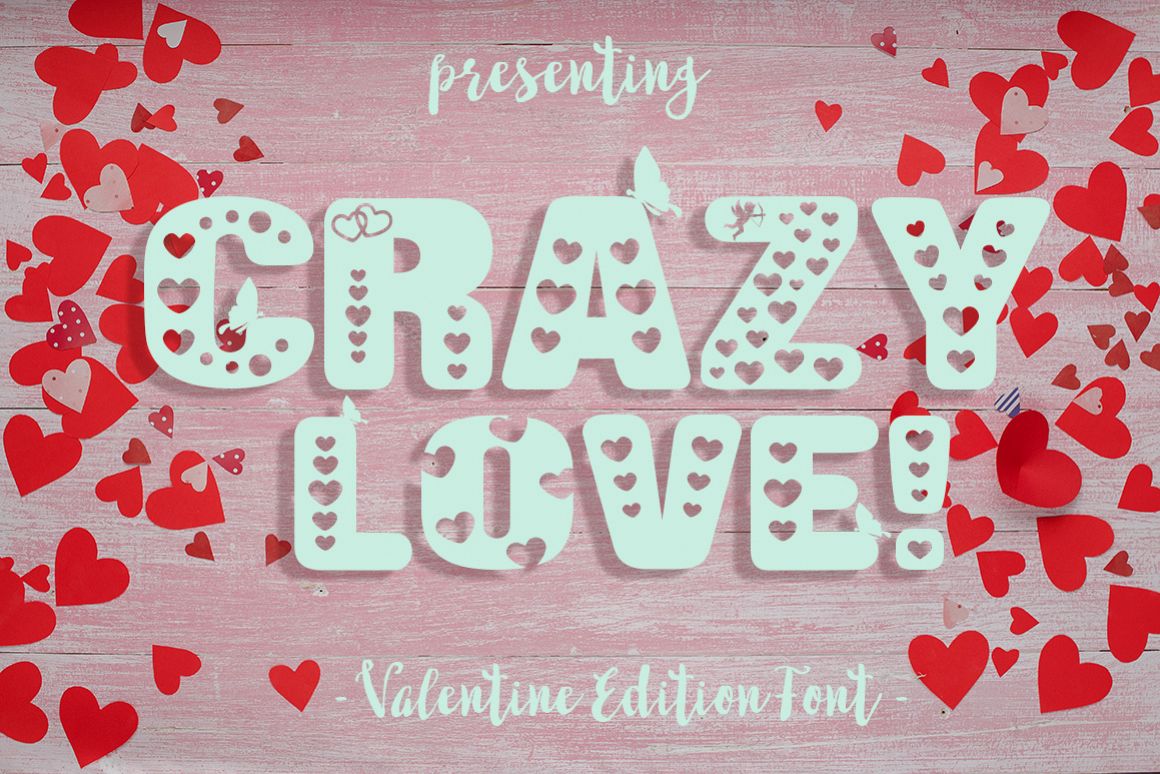
Crazy Love: A Valentine Edition Font
A beautiful font just in time for Valentine's Day!
This font is intended to be used as a header font, ornamental font
and for craft products! Optimized for crafters with Cricut and
Silhouette Studio! The number of points in each letter is reduced to a
minimum and the cutting takes much less time.
The font comes with uppercase A-Z letters, 0-9 numbers and limited punctuation.